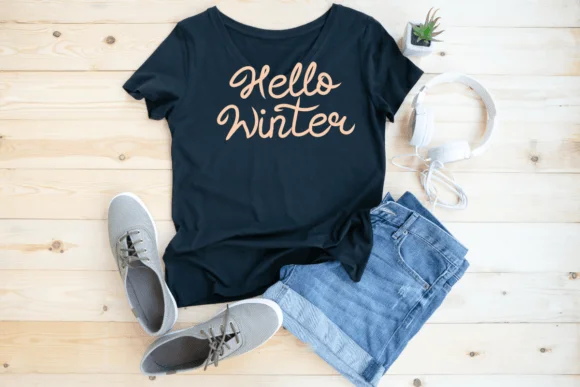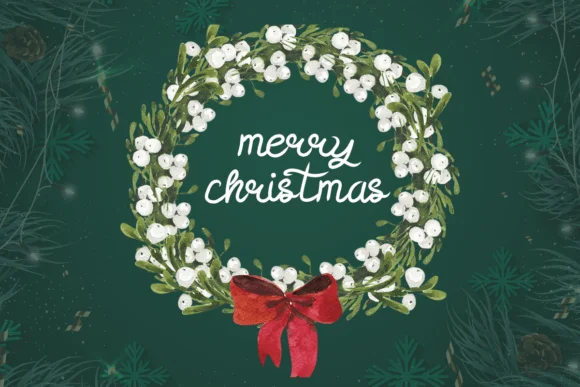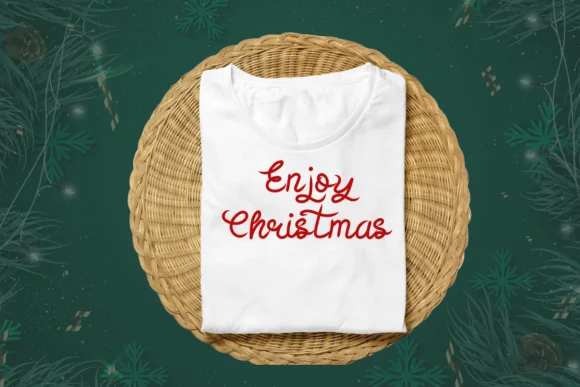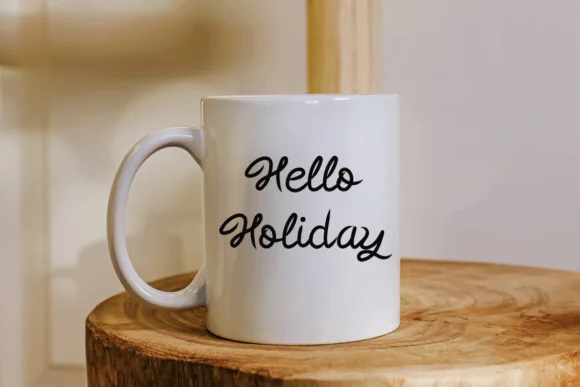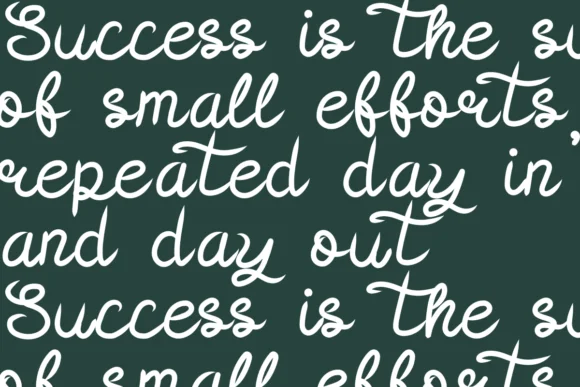
Santa Christmas Font
This jolly font is perfect for Santa letters, Christmas wish lists, North Pole decorations, Santa's workshop displays, children's Christmas books, Santa Claus advertisements, Christmas toy store signage, holiday mall Santa displays, Christmas village scenes, and magical Santa-themed seasonal messaging.
Santa Christmas Font is exciting because it captures the beloved warmth and magical personality of Santa Claus through its cheerfully rounded letterforms that embody the jolly spirit and generous heart of the world's most famous Christmas figure. The font features friendly, welcoming characters with Santa-inspired curves and delightful details that mirror Santa's iconic red suit, twinkling eyes, and merry laugh, incorporating subtle elements like snow accents, gift-inspired flourishes, and North Pole touches that bring Santa's magical world to life in typography. Each letter showcases the same warmth and approachability that makes Santa so beloved by children and adults alike, with comfortable proportions and joyful details that create text as inviting as Santa's famous "Ho ho ho!" The design perfectly captures Santa's essence as both a magical figure and a symbol of generosity, kindness, and Christmas joy.
The Santa Christmas Font family includes North Pole-inspired variations: Regular, Bold, Light, Jolly, and Workshop versions. The collection features special Santa elements including beard flourishes, hat accents, gift box details, and sleigh ornaments. Additional components include North Pole borders, workshop frames, Santa decorations, and magical ornamental designs that enhance the font's Santa Christmas appeal and create cohesive jolly holiday themes.
Children's authors and Santa experience creators will find Santa Christmas Font to be an invaluable tool for creating authentic Santa communications that capture the magic and wonder of Santa Claus traditions. This delightfully crafted font transforms ordinary Santa messaging into magical expressions that bring Santa's world to life and help maintain the cherished belief and excitement that make Santa such an important part of childhood Christmas memories.
The typeface includes comprehensive character support with Santa-inspired styling that maintains excellent readability while conveying the jolly warmth and magical personality of Santa Claus. The font's cheerful design ensures delightful results across both children's applications and family-oriented Santa projects.
Perfect for toy stores, children's entertainment, Santa experiences, and magical Christmas celebrations, this font delivers joyful visual impact that communicates magic, generosity, and the timeless appeal of Santa Claus that continues to bring wonder and excitement to Christmas celebrations for families around the world.